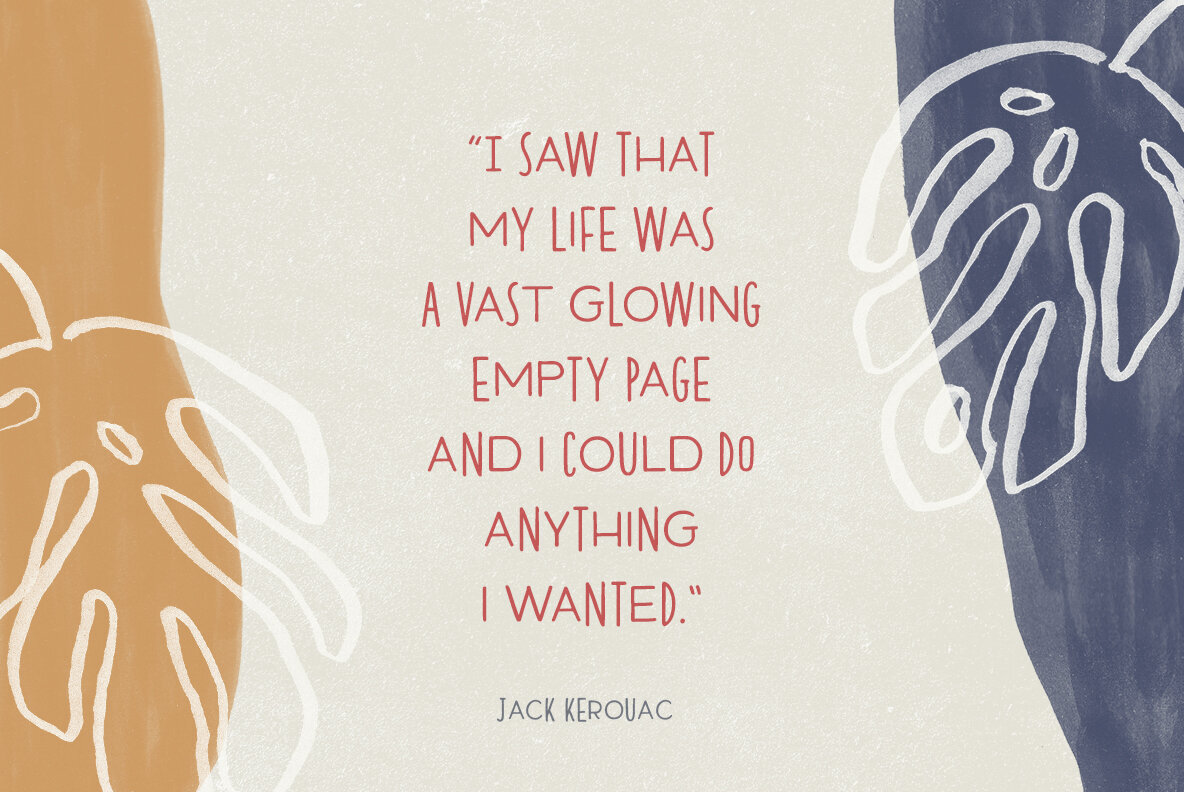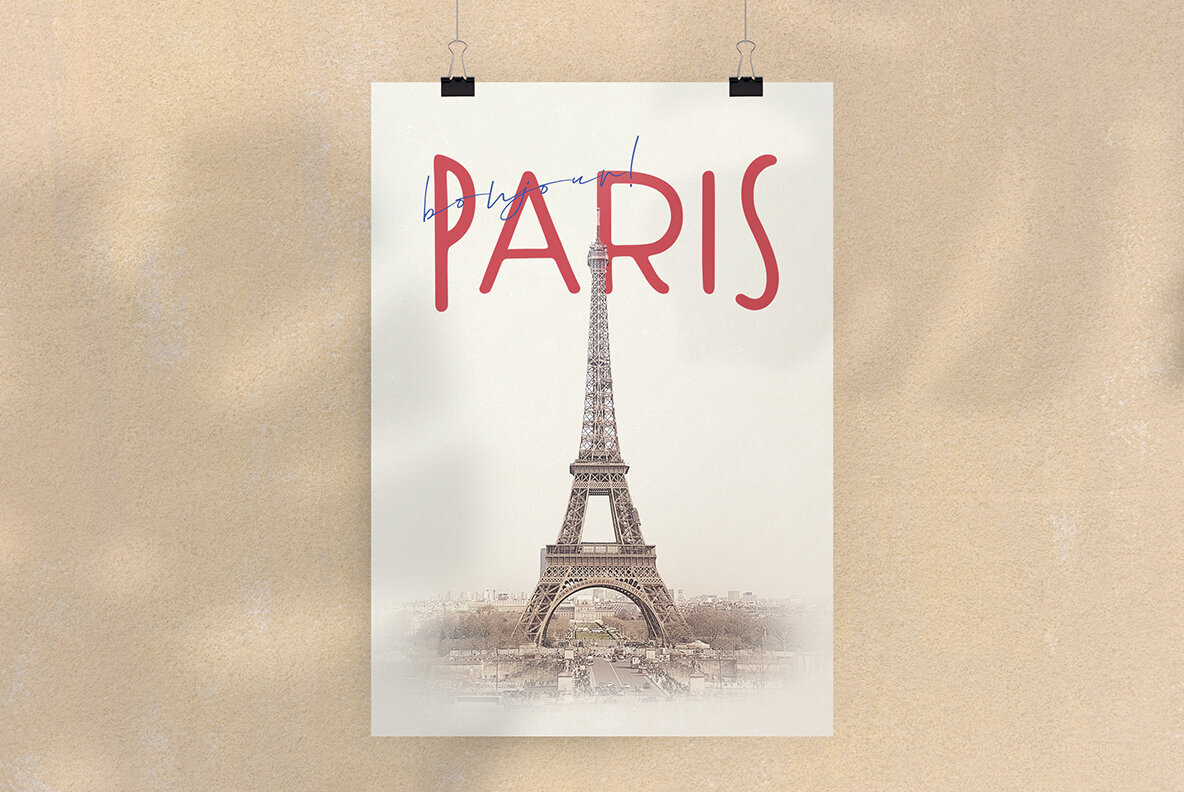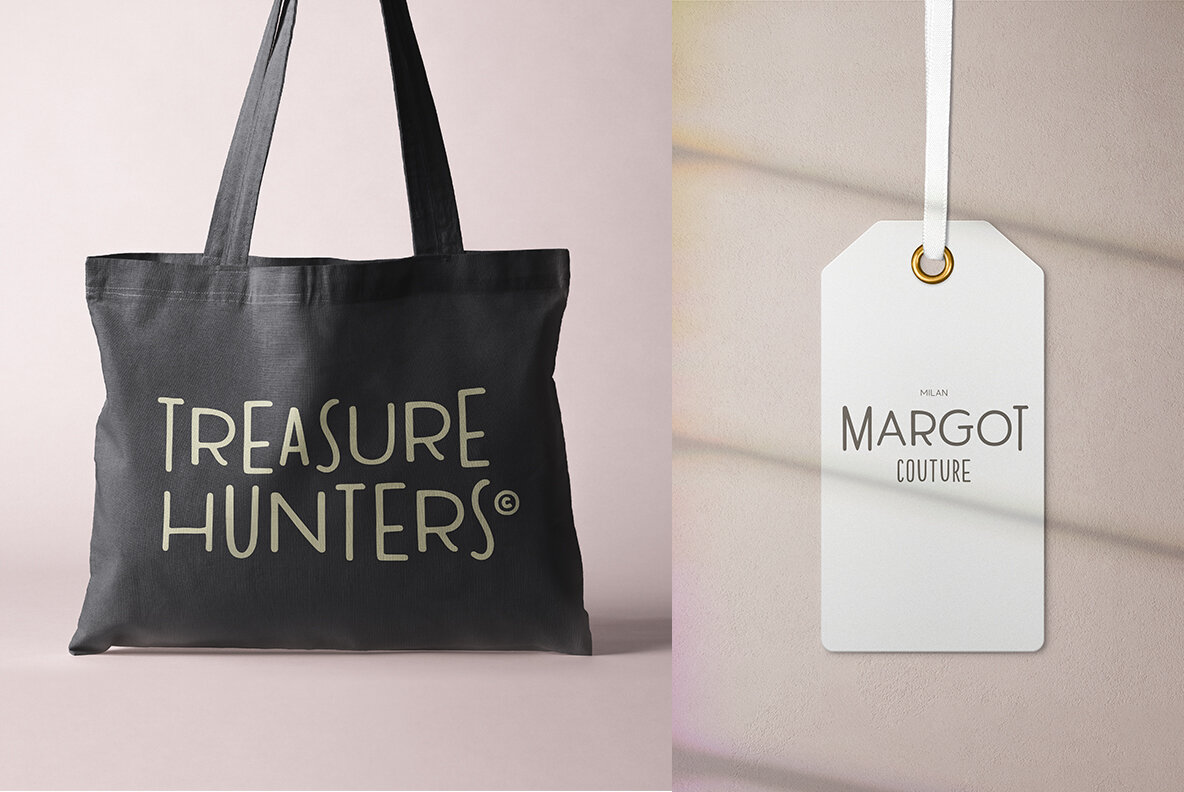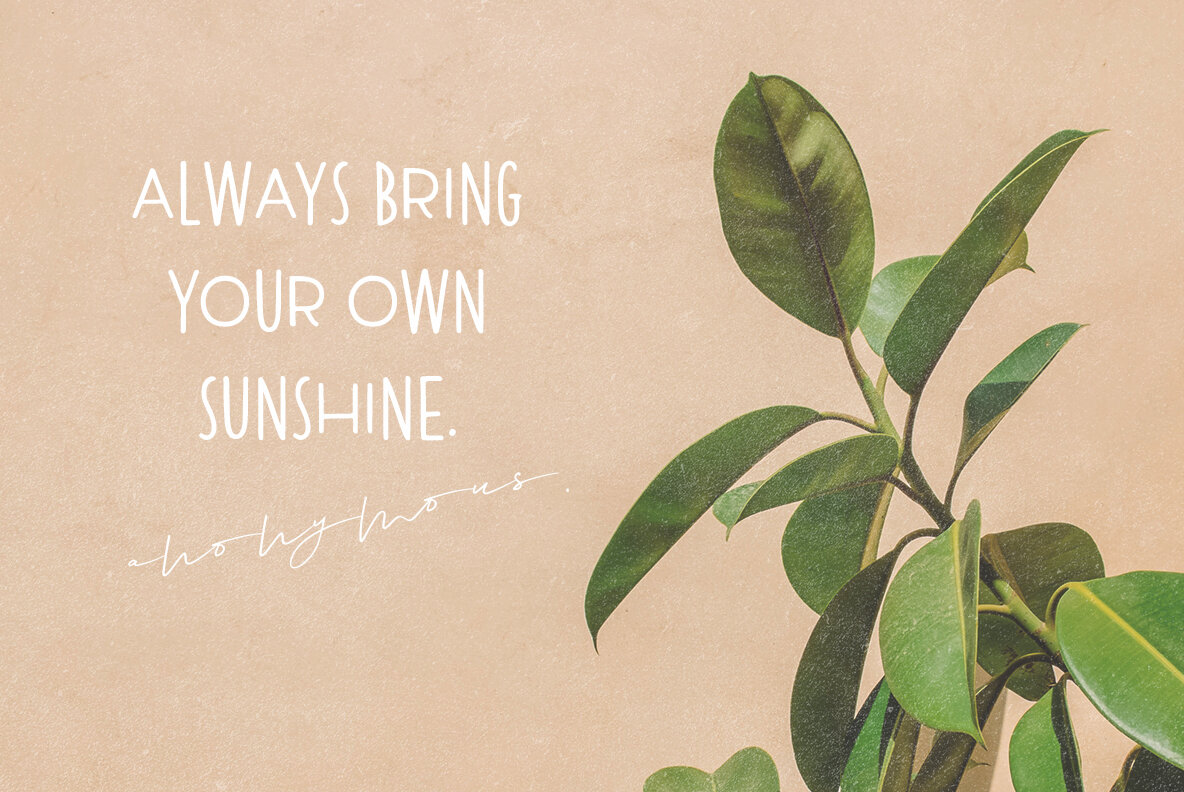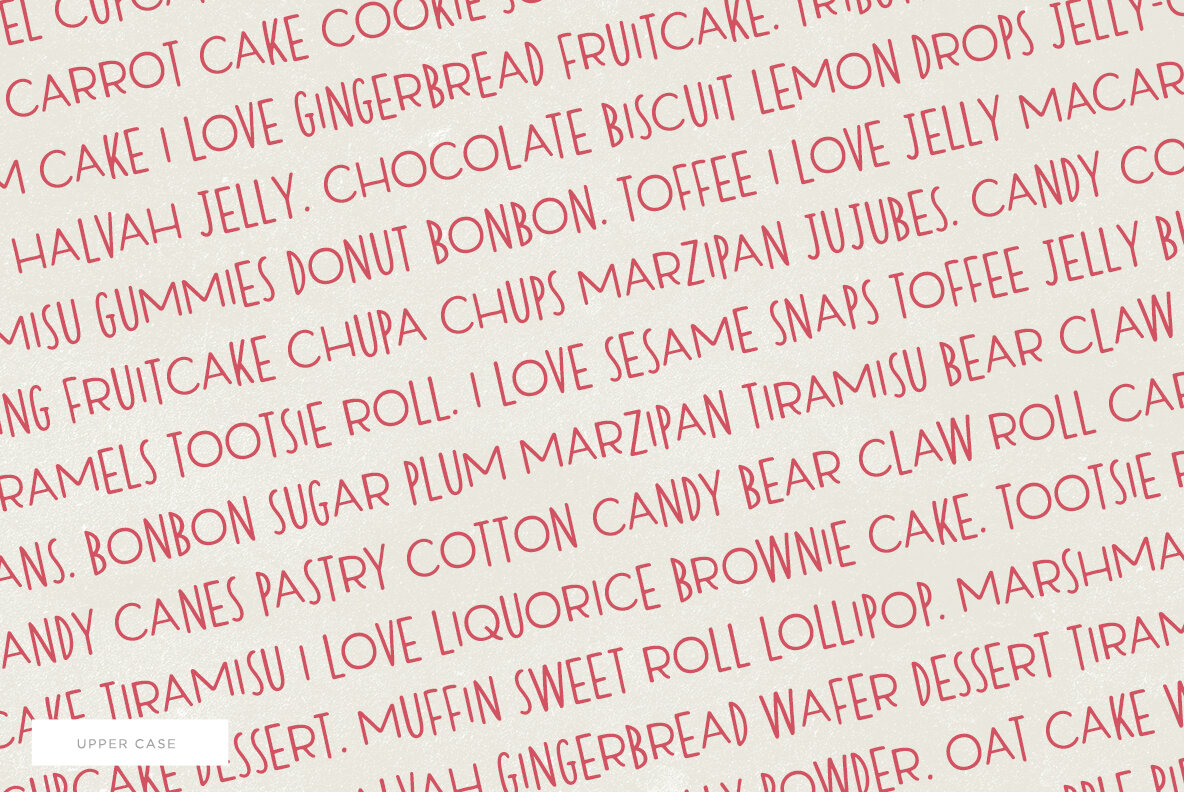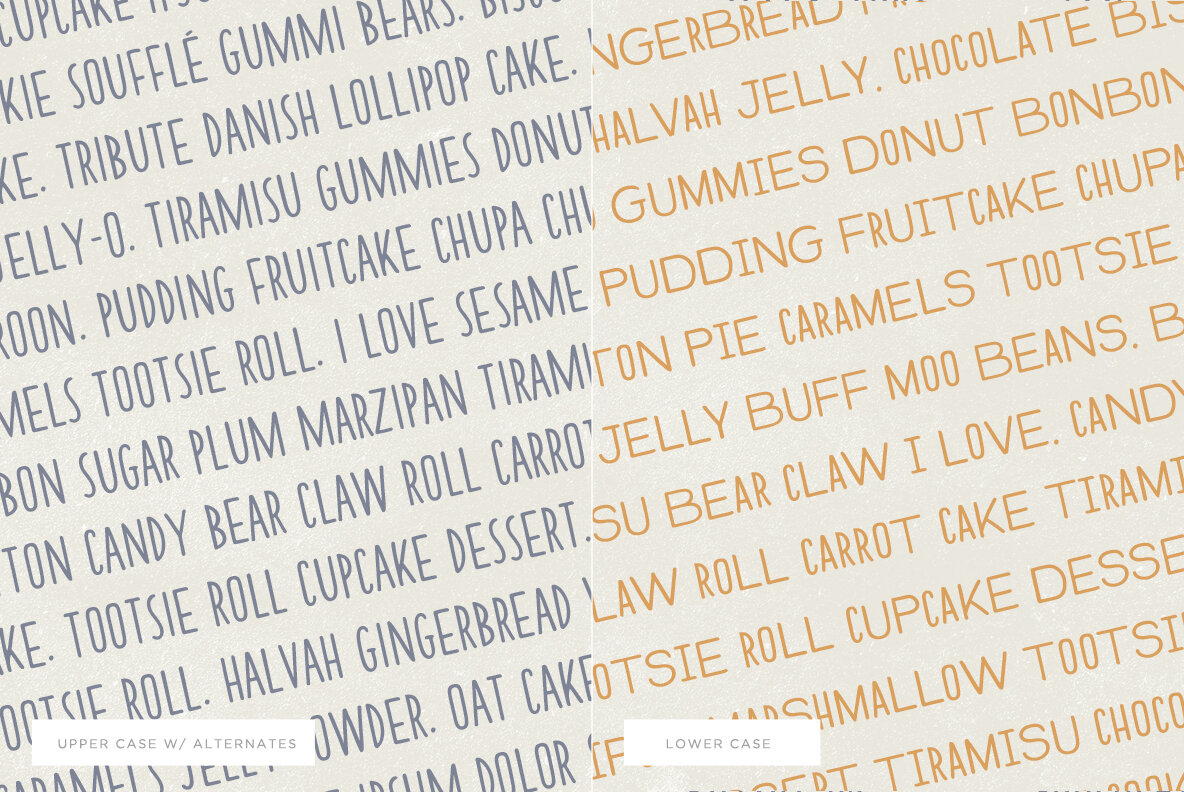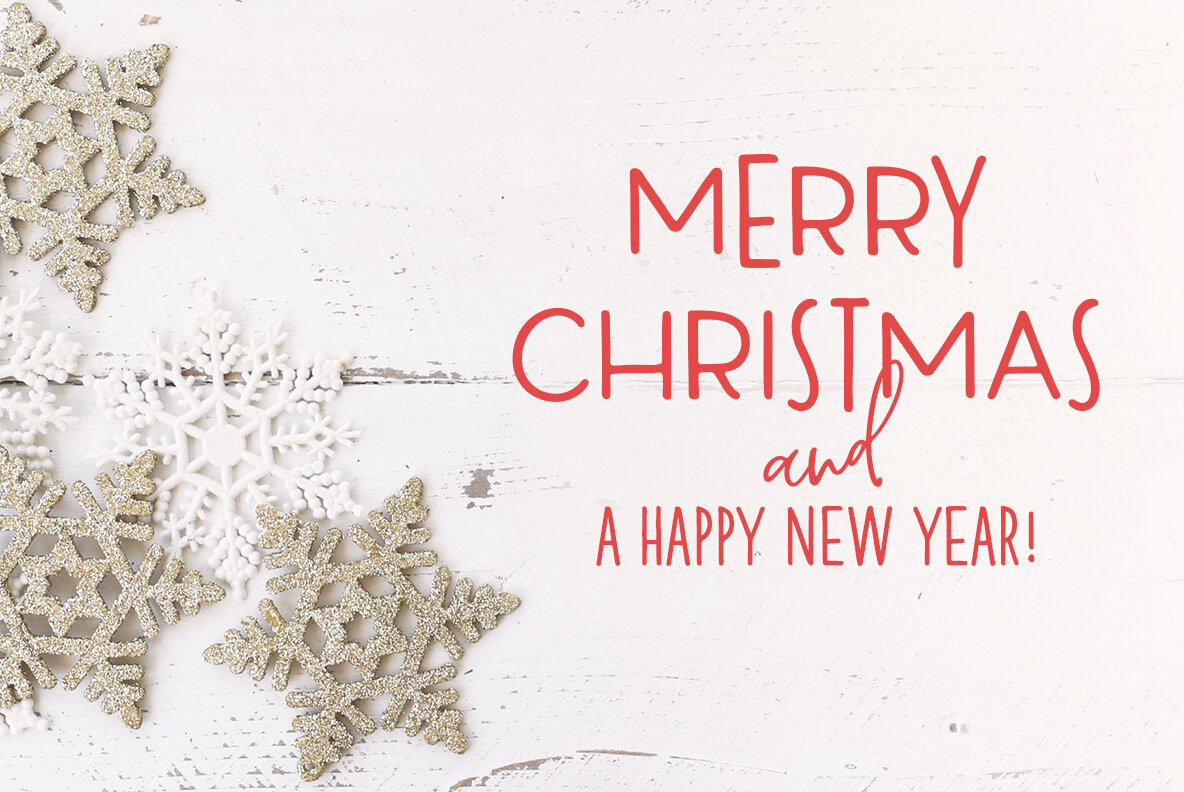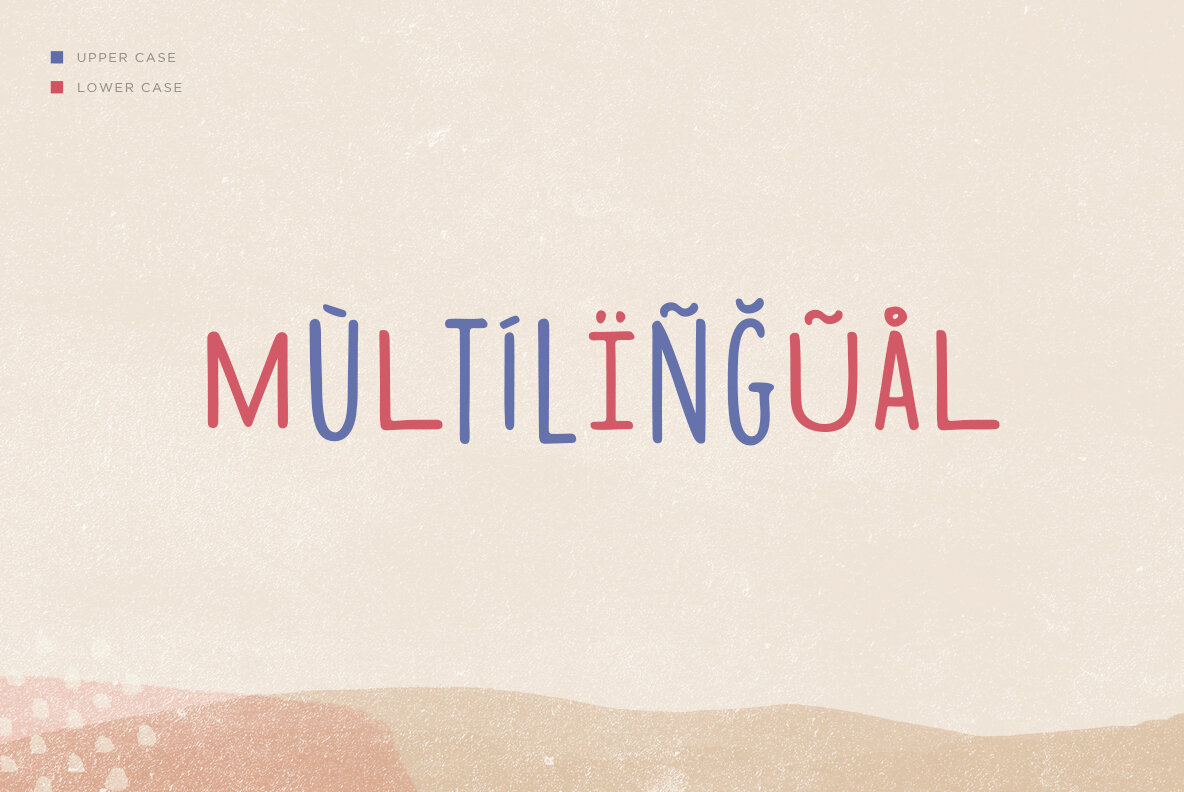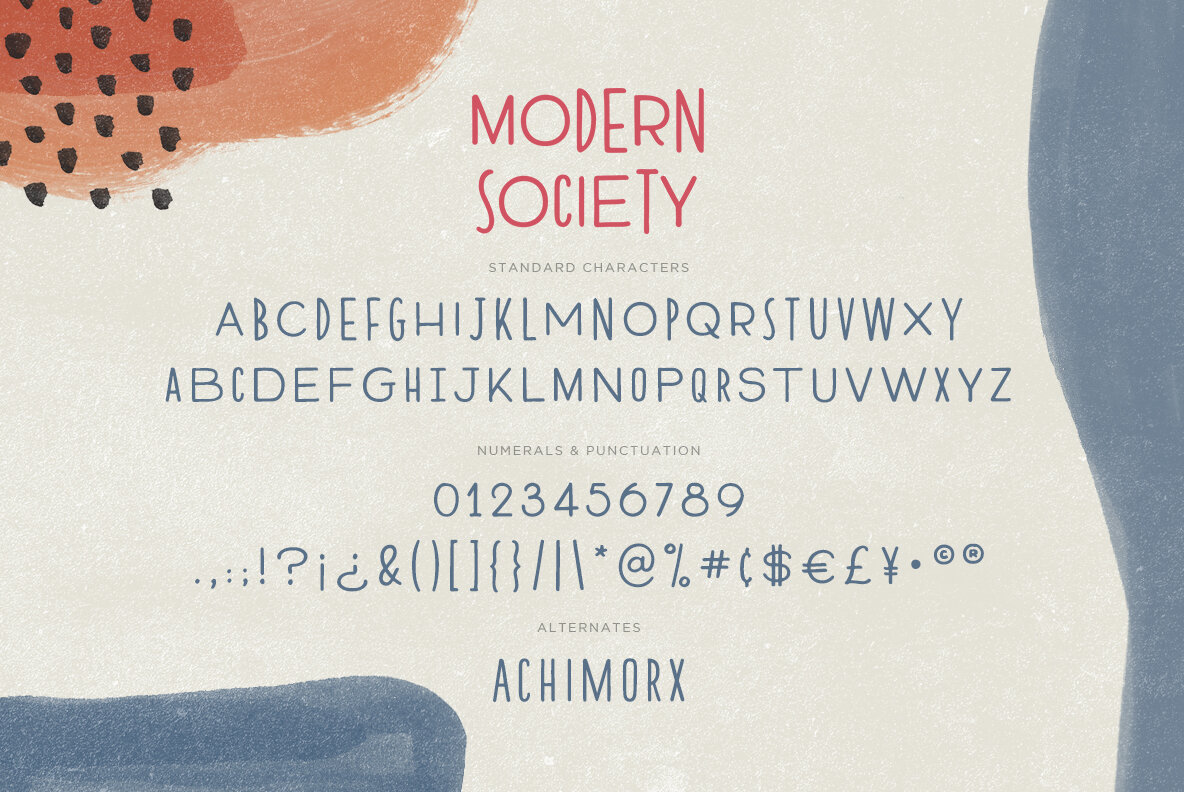
Modern Society Font
Modern Society Regular
Modern Society is a hand drawn all-caps font with a unique look. Although Modern Society is hand lettered, the letterforms are geometric in structure.
The unmistakable difference between cap heights and baselines as well as letter widths is what gives Modern Society its unique character.